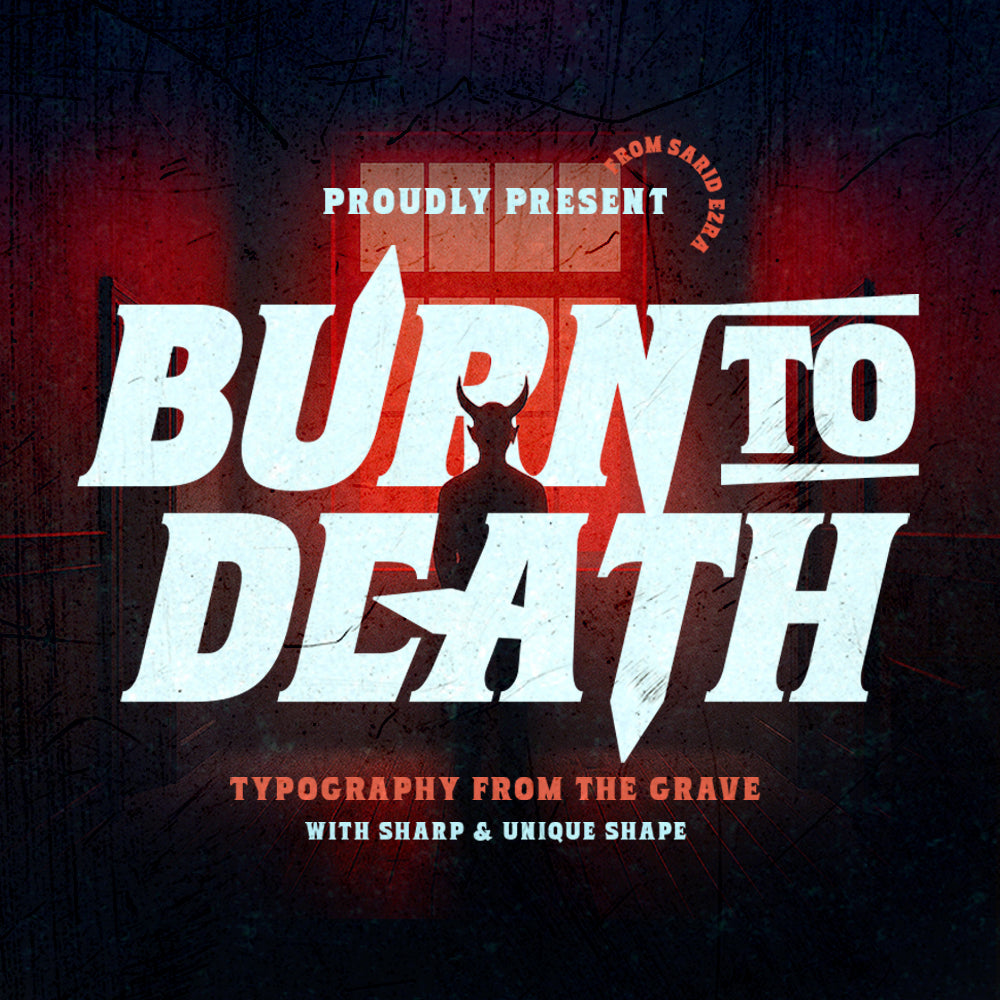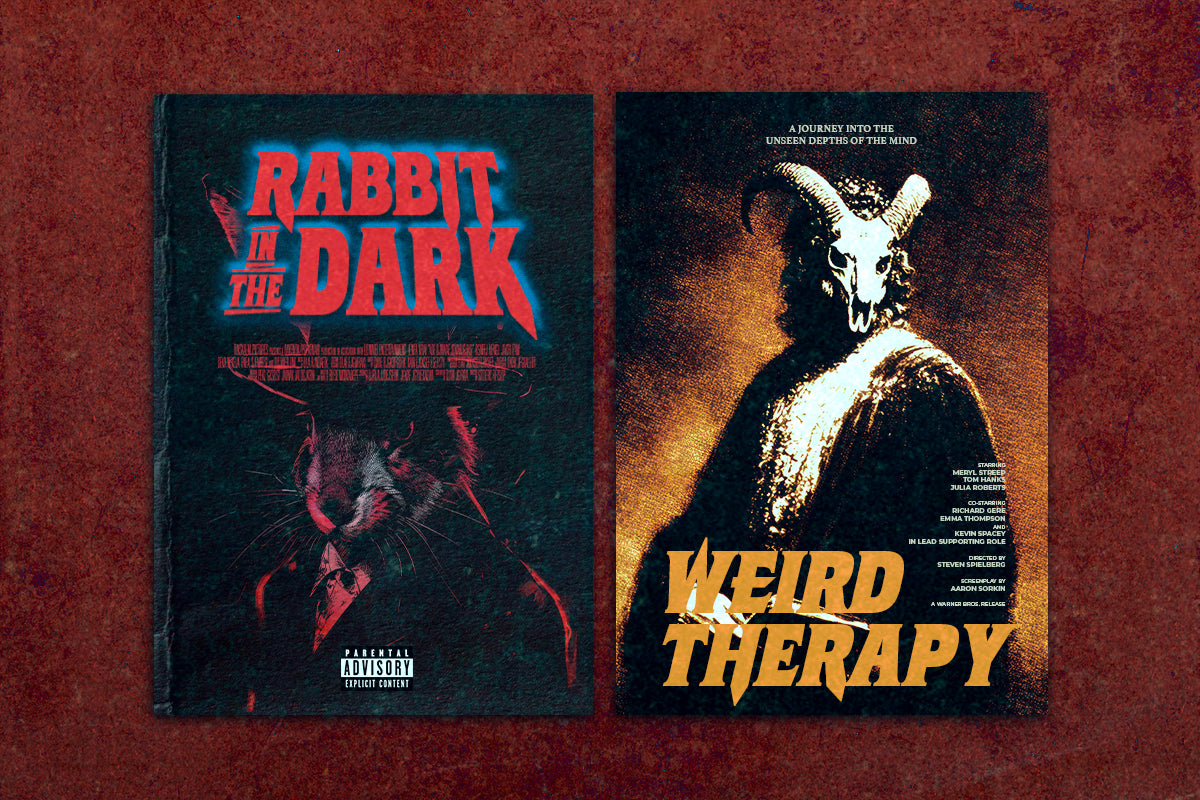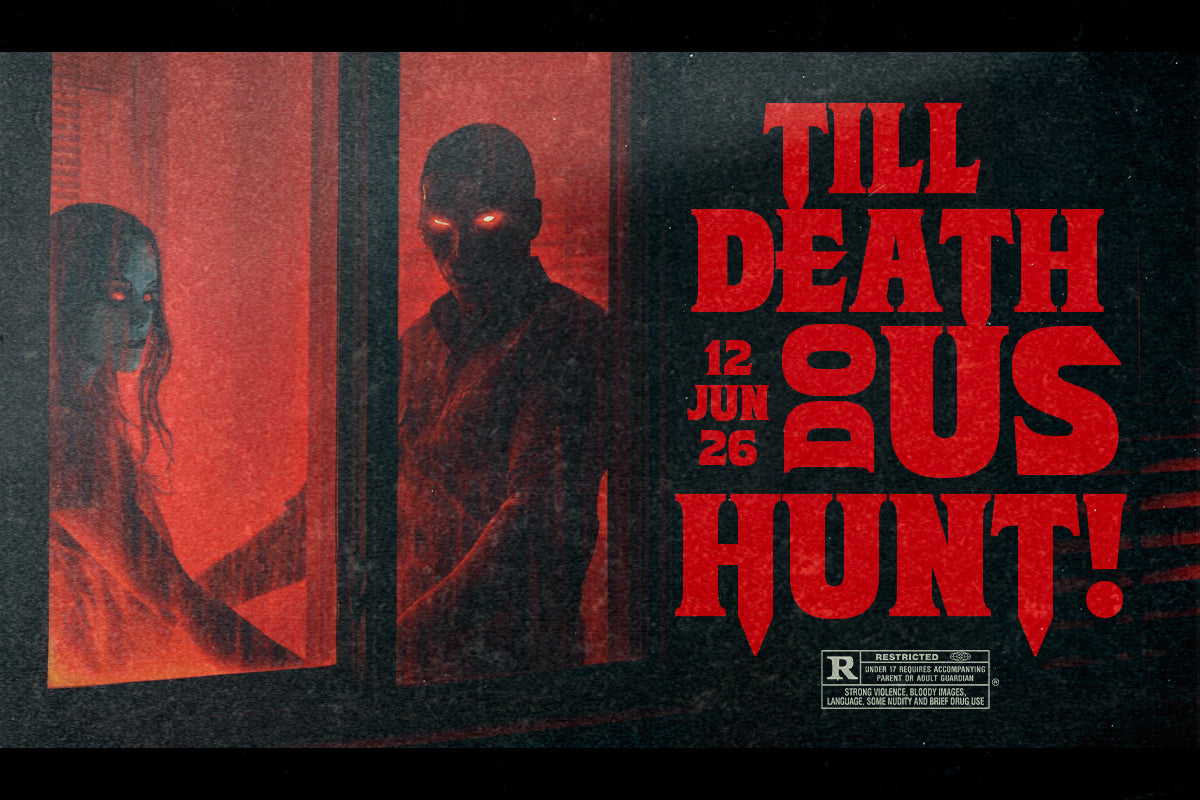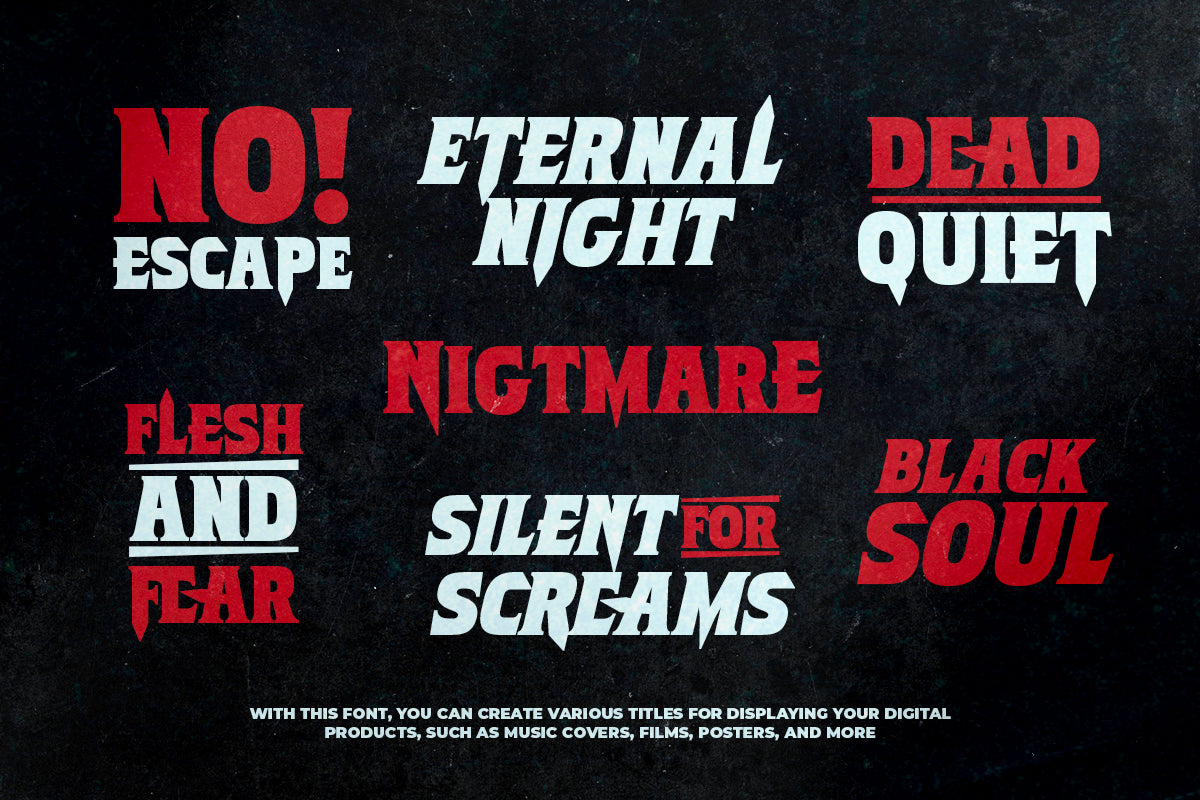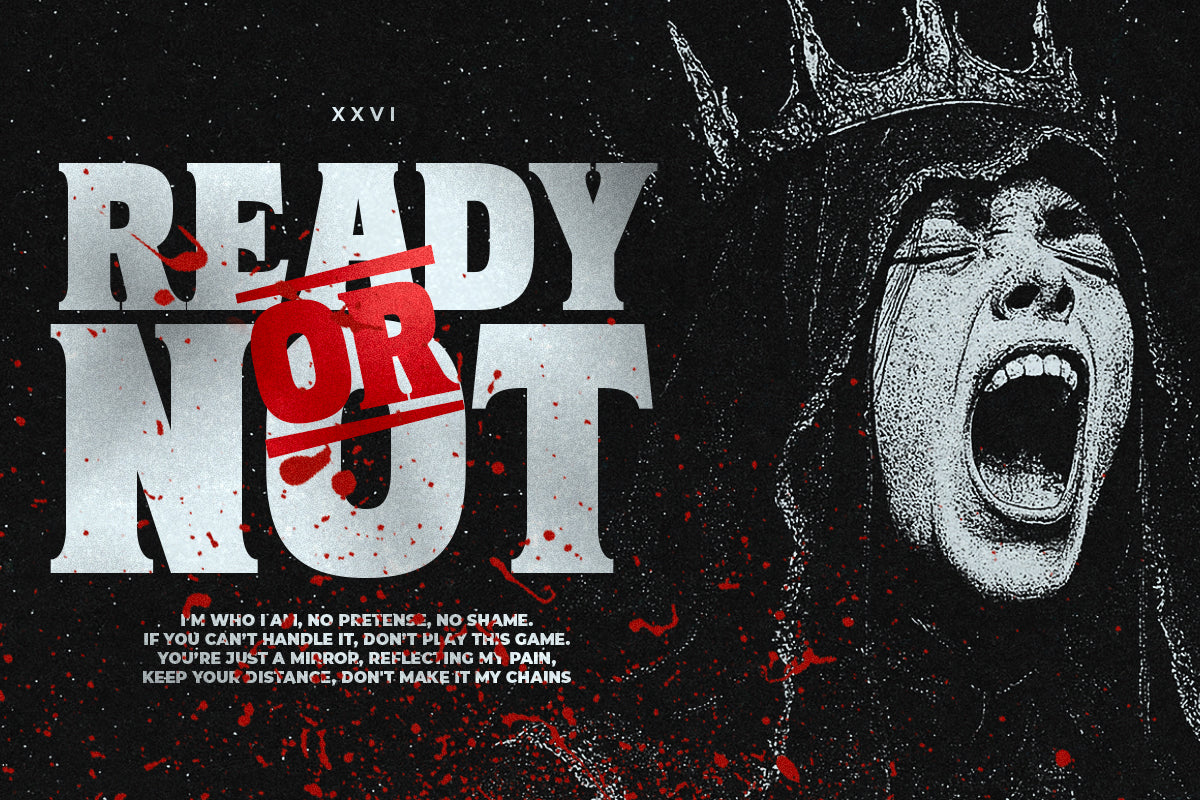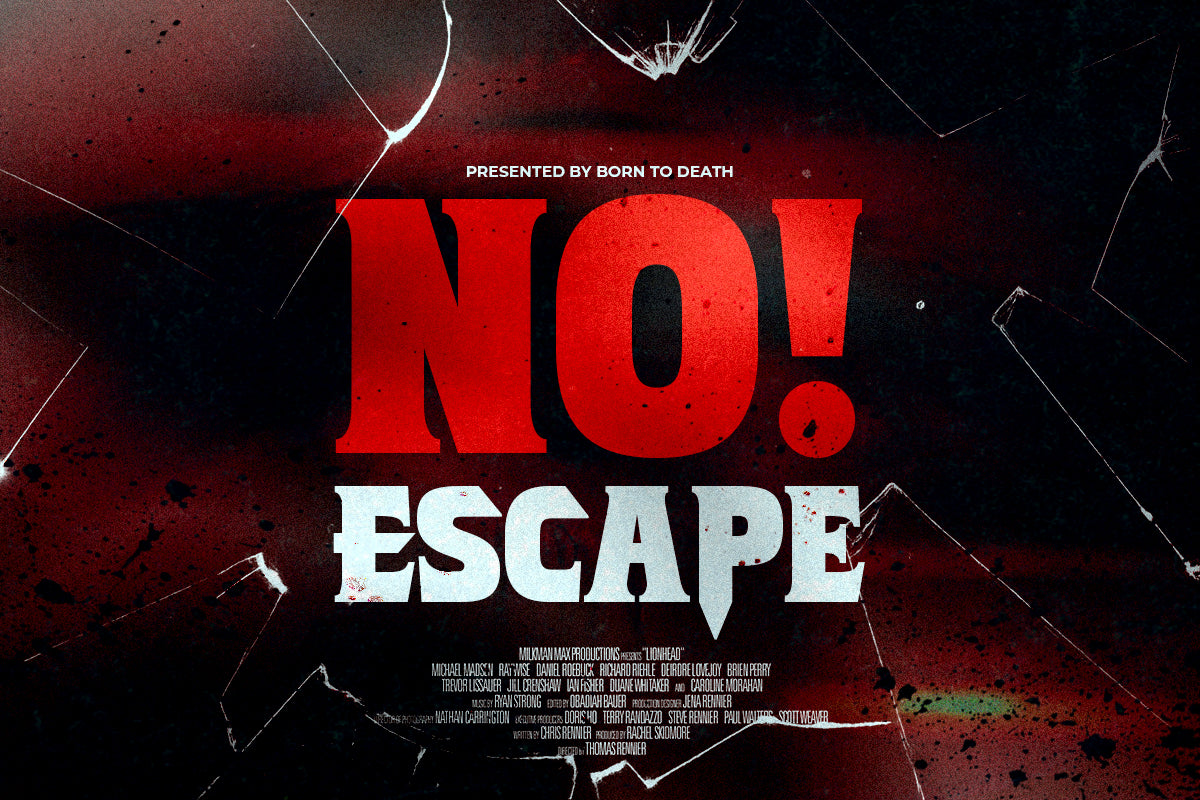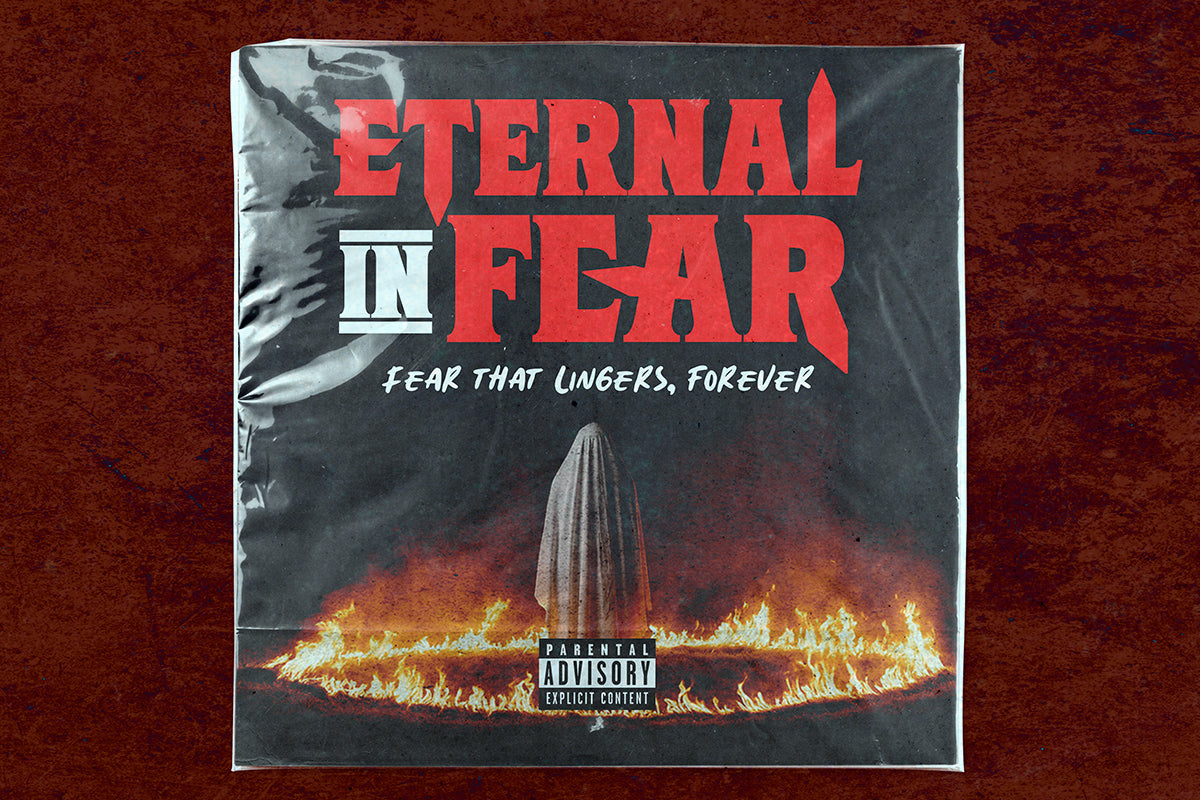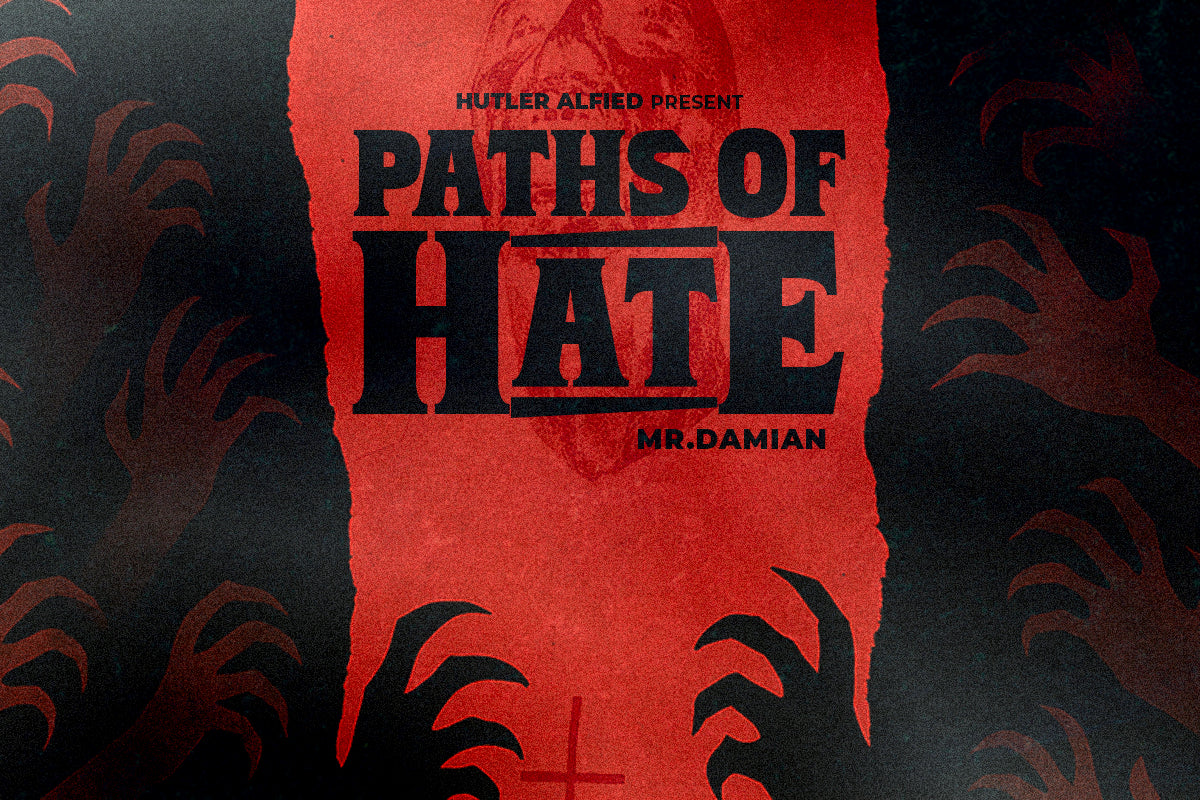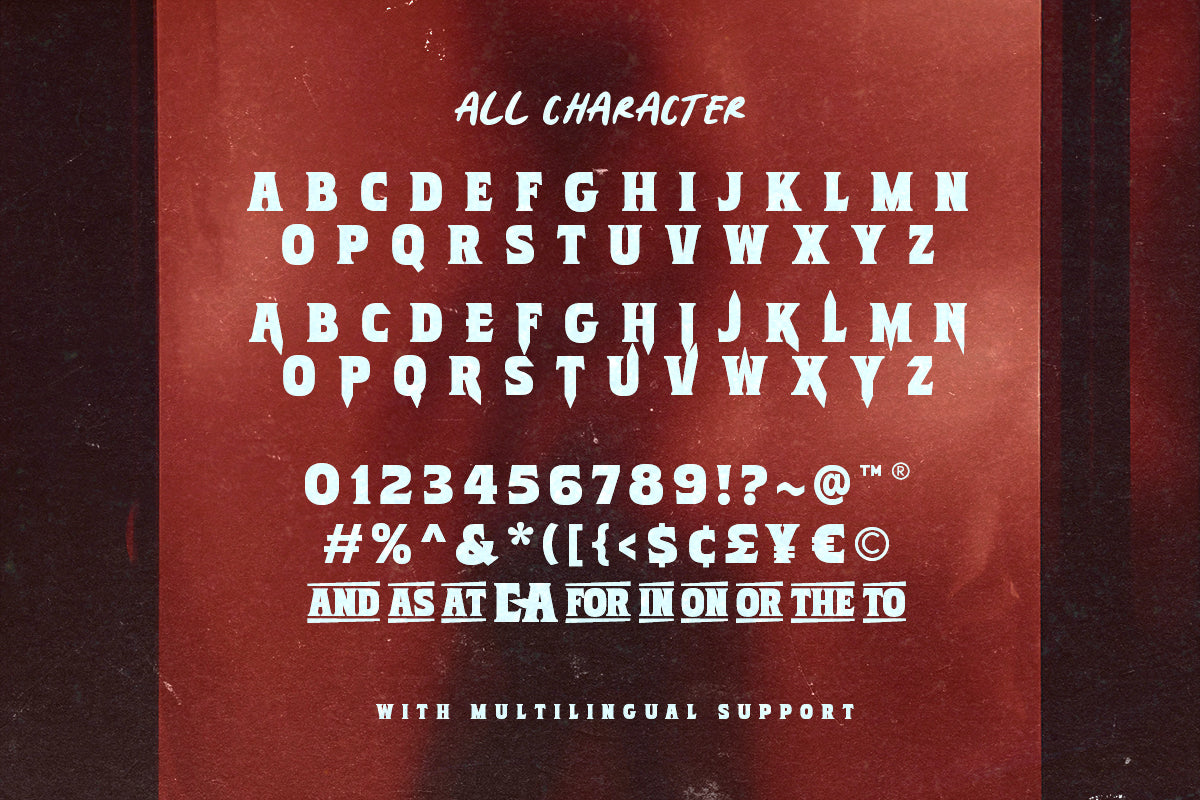
Burn to Death - Terrific Horror Font
Burn to Death is a horror serif font featuring sharp and bold letterforms that evoke a vintage or gothic aesthetic. It includes classic uppercase letters and uniquely detailed lowercase letters resembling knives, along with an italic version and support for multiple languages.